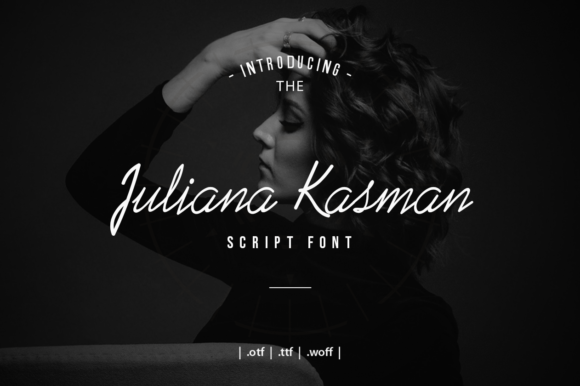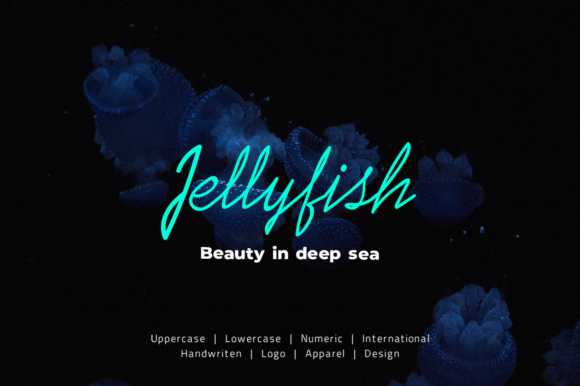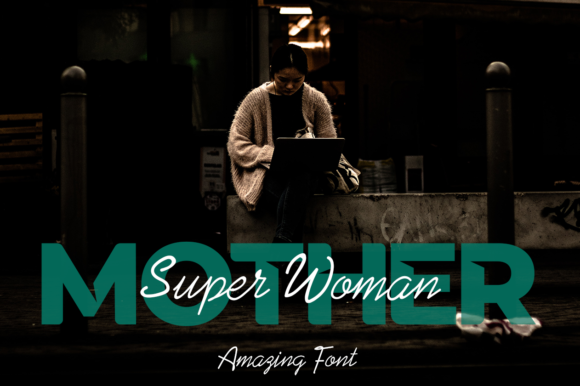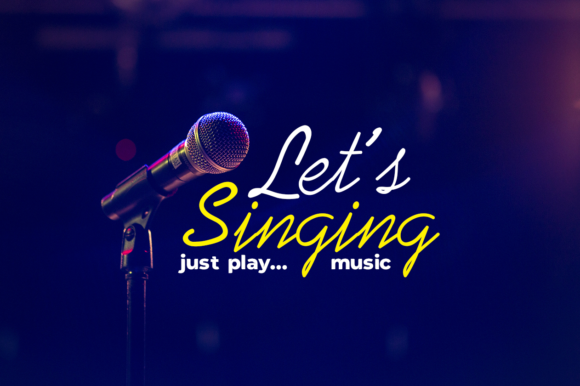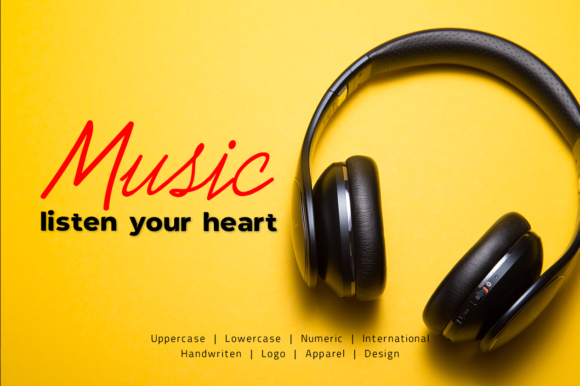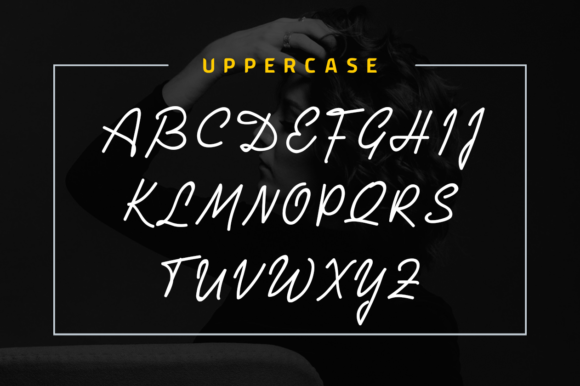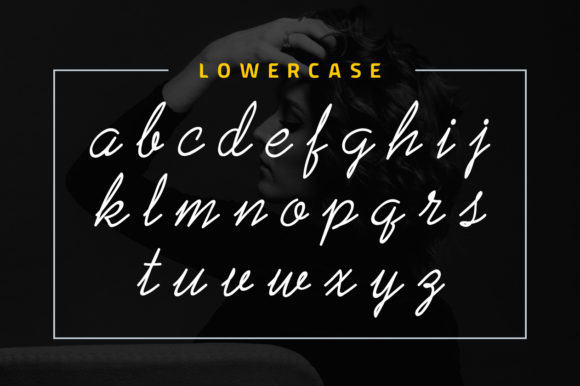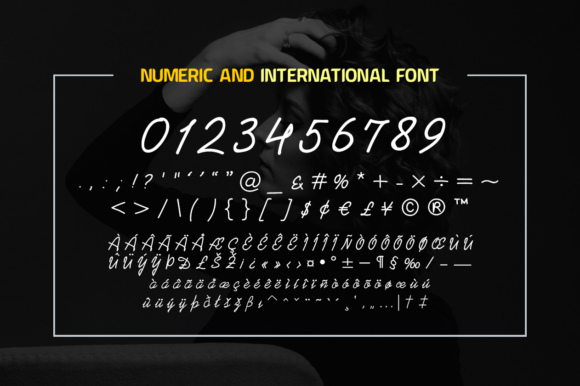
Juliana Kasman Font
Juliana Kasman is a stylish script font that features a varying baseline, smooth lines, and a handmade touch. Get inspired by its unique look & feel!